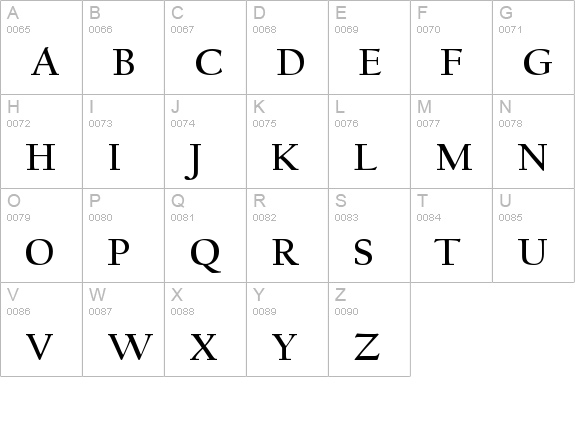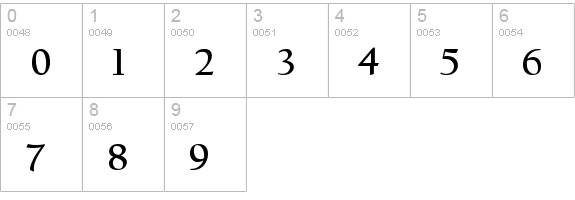
Californian FB Bold Font Details
Californian FB Bold is a strong, high-contrast variant in the Californian typeface family \xE2\x80\x94 well suited to headlines, attention-grabbing titles, and strong calls-to-action.
Introducing Californian FB Bold font - a sleek and modern typeface that exudes confidence and sophistication. With its bold lettering and smooth curves, this font is perfect for making a statement in any design project. Whether you're creating a striking headline or a stylish logo, Californian FB Bold font is sure to catch the eye and leave a lasting impression. Best of all, this versatile font is available for free download at FontsMarket.com. Simply visit the website to access this fantastic font and add a touch of California cool to your designs. Don't miss out on the opportunity to enhance your projects with the bold and stylish Californian FB Bold font - download it today and let your creativity shine!